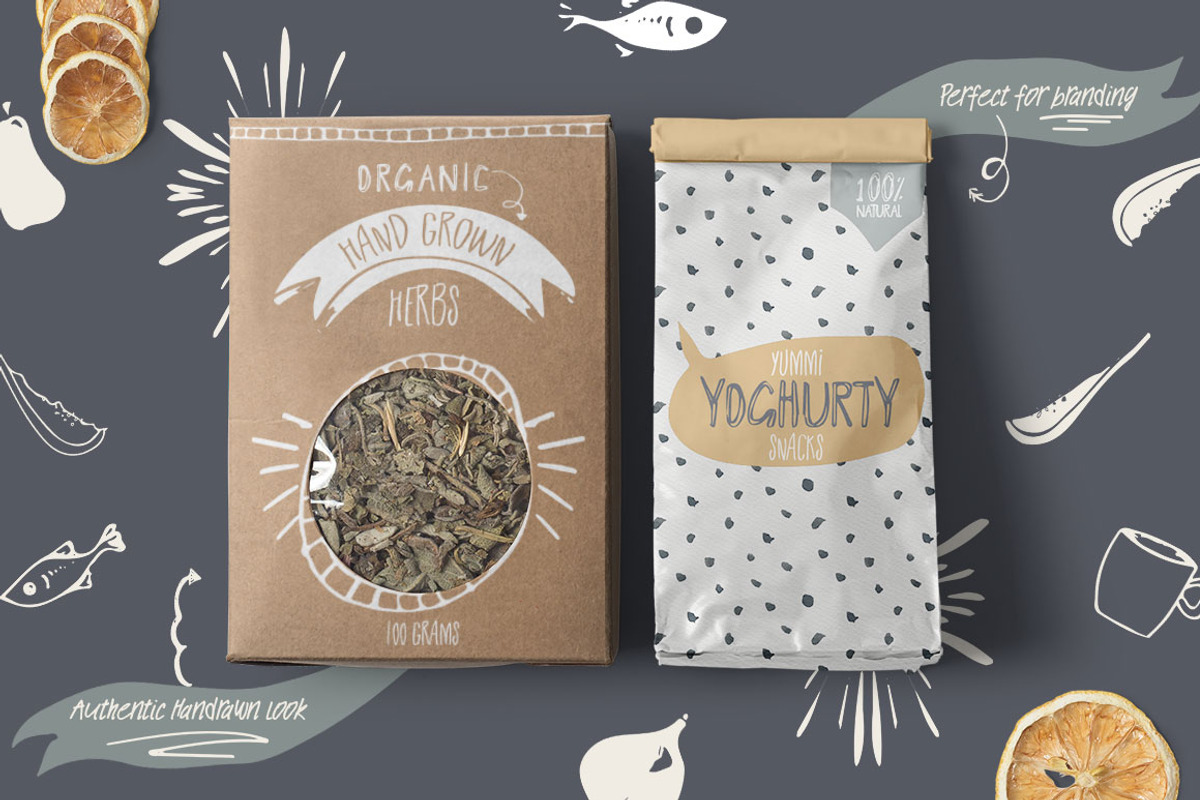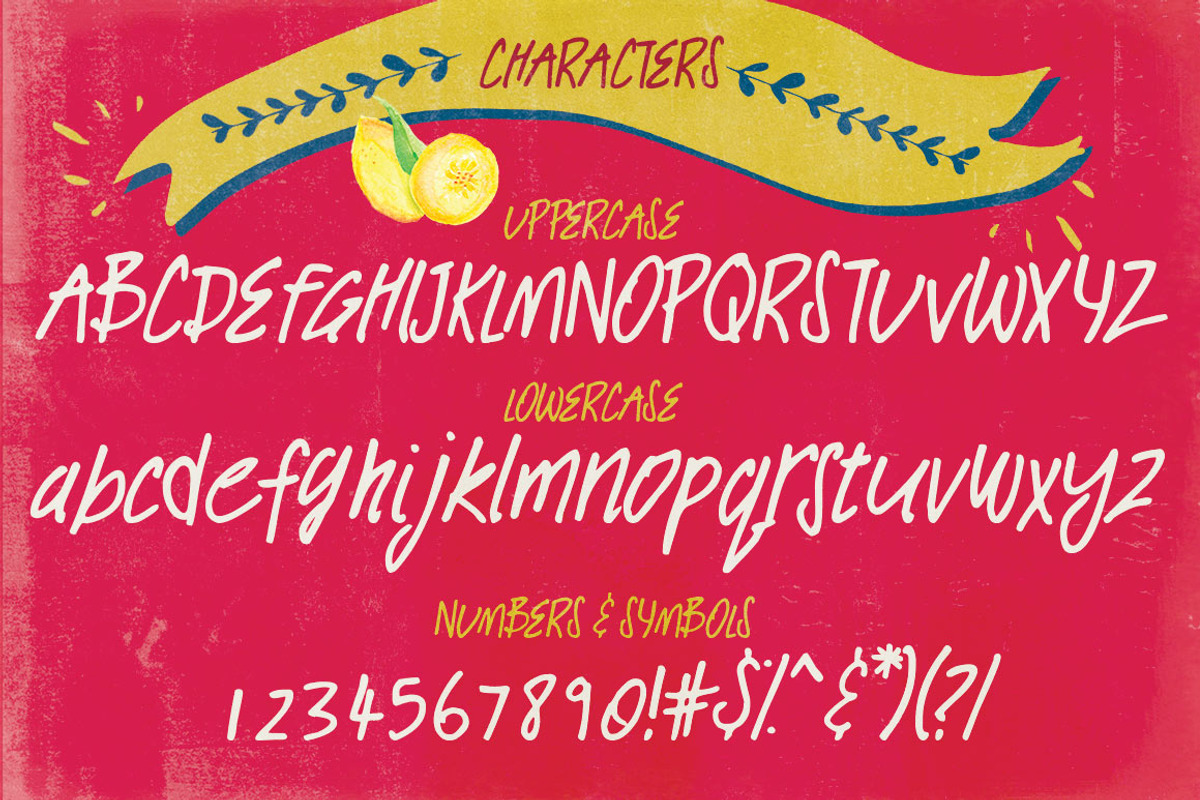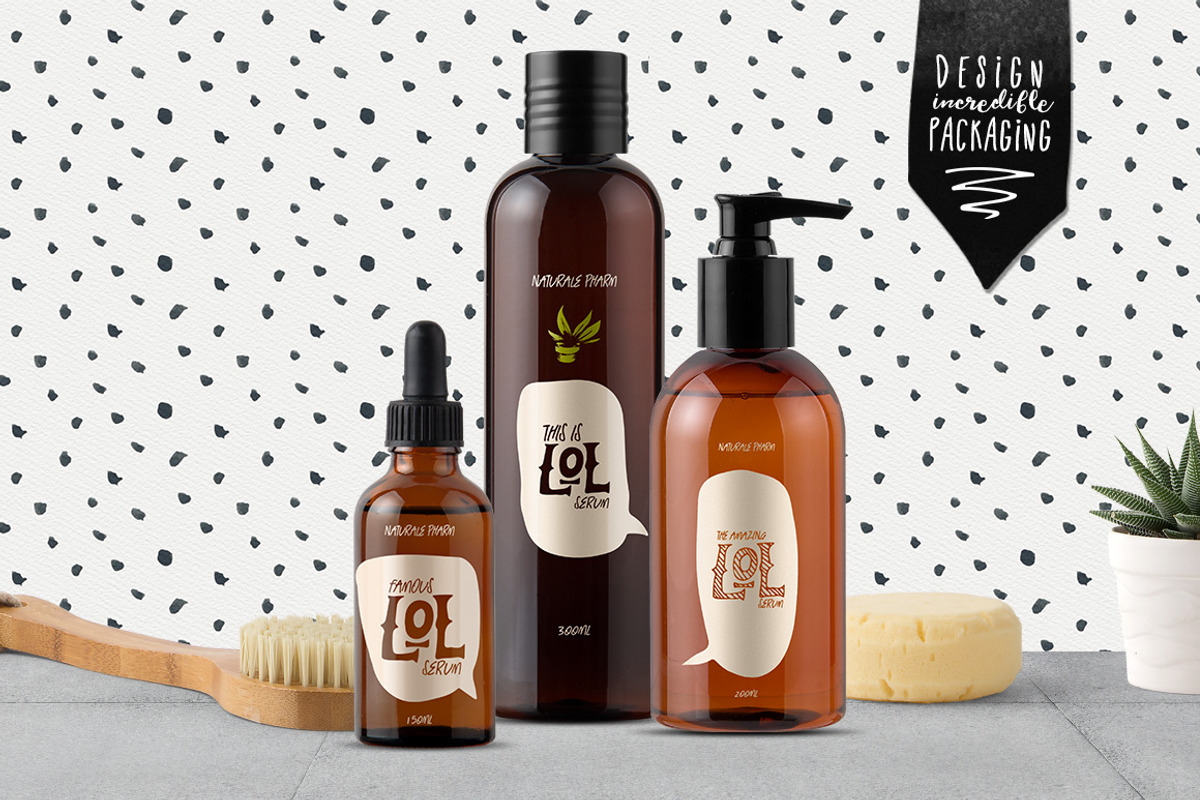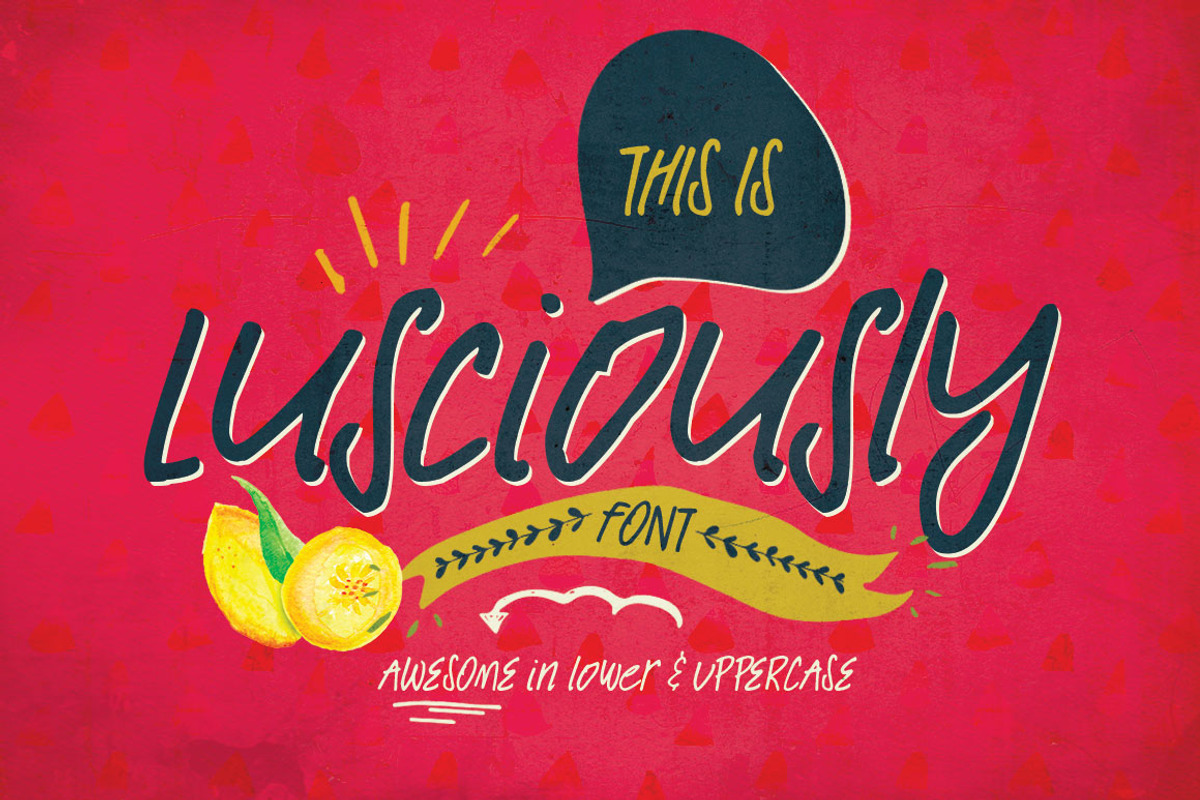
Lusciously Font Typeface
Lusciously Font Typeface by Creativeqube Design is a font selected for branding, posters, packaging, typography.
- Brand new font - Lusciously - A hand drawn font that looks awesome in both uppercase and lowercase.
Why Lusciously Font Typeface is worth a look
Lusciously Font Typeface by Creativeqube Design fits naturally into Branding, posters, packaging, typography.